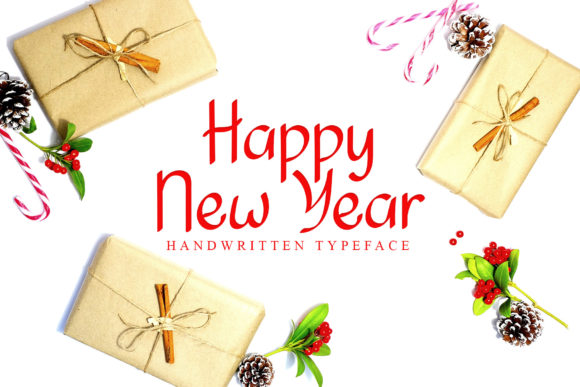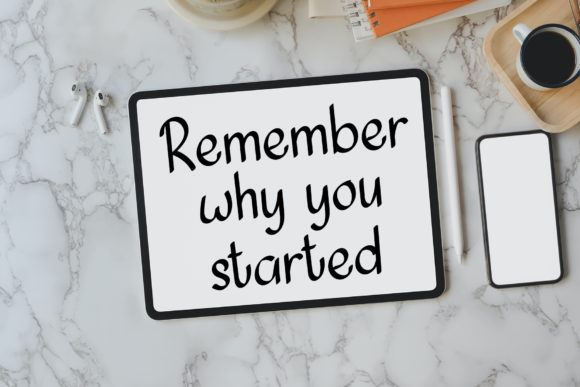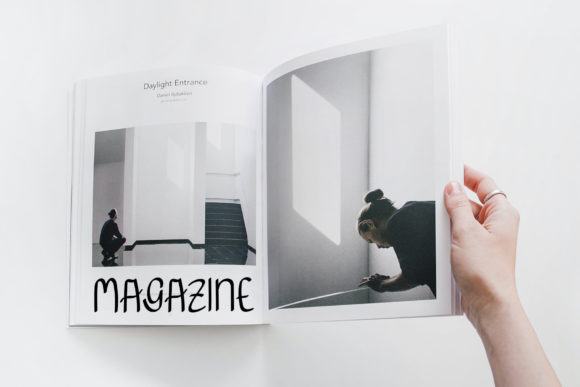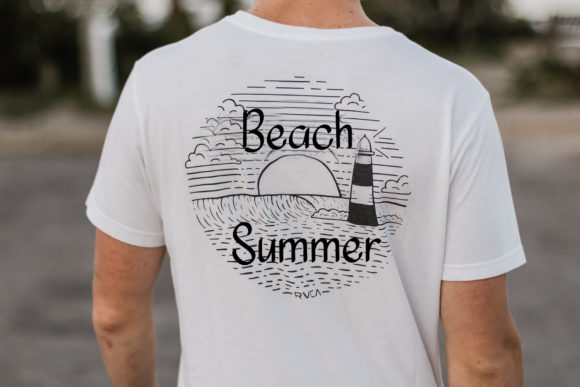
Pop of Personality: The Charm of Beach Ball Font
Who hasn’t had a moment of creative inspiration while strolling along the beach, feeling the sand between their toes and the wind in their hair? For me, it was during a family vacation that I stumbled upon a quirky beach sign, hand-painted with a beautiful, playful font. I was immediately drawn to its unique charm and knew I had to capture that feeling in my designs.
Enter the Beach Ball Font, a sweet and friendly handwritten font that’s perfect for adding a touch of whimsy to your projects. With its natural and unique style, this font is incredibly versatile and can be used in a wide range of designs, from greeting cards to merchandise and more. Whether you’re a seasoned designer or just starting out, the Beach Ball Font is a valuable addition to your toolkit.
- Unique Characteristics: Beach Ball Font features a unique, playful design with rounded shapes and soft curves, making it perfect for creating fun and energetic designs.
- Style Options: Beach Ball Font comes in multiple styles, including Regular, Italic, Bold, and Bold Italic, allowing designers to choose the perfect look for their designs.
Beach Ball Font Review
Overall, I’m quite impressed with the Beach Ball Font. The designer has managed to capture the playful essence of a beach ball in a font, which is no easy feat. Here are some of the things that work well:
- ✨ The rounded shapes and smooth curves make it perfect for headings and titles, adding a touch of fun to any design.
- ✨ The font is highly customizable, allowing designers to adjust the size, color, and even the texture of the font to fit their needs.
- ✨ The font is well-suited for playful and casual designs, making it a great choice for summer-themed projects or children’s educational materials.
- ⚠️ The font may not be the best choice for formal or professional designs, as it may come across as too playful or childish.
- ⚠️ The font can be quite bold, so designers may need to use it in moderation to avoid overwhelming the design.
Overall, I’d give the Beach Ball Font 4 out of 5 stars. It’s a great addition to any designer’s toolkit, and I can see it being used in a variety of creative projects. With a little creativity and restraint, the Beach Ball Font can add a fun and playful touch to any design.
To get the most out of the Beach Ball Font, use it in designs that require a playful and whimsical touch. This font is perfect for creating invitations, social media graphics, and other designs that need a fun and carefree vibe.
The Beach Ball Font is commonly used in designs that require a playful and energetic feel. Some common use cases include:
- Summer-themed designs
- Children’s party invitations
- Social media graphics
- Playful advertising